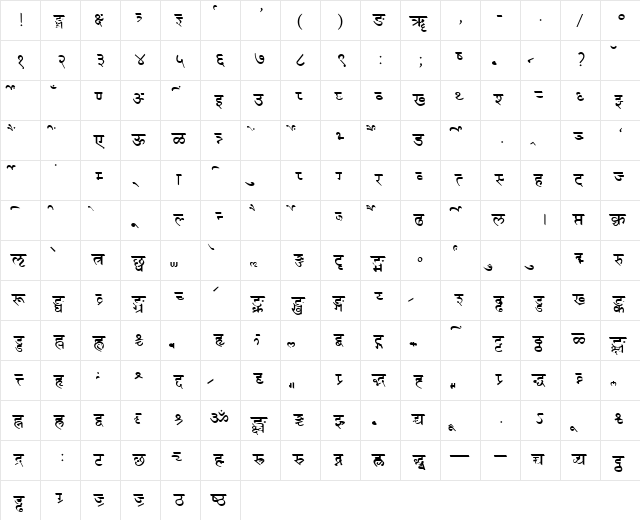
AkrutiDevPataliputra Normal
Design Context for AkrutiDevPataliputra Typeface
AkrutiDevPataliputra is a composed and adaptable typeface that performs quietly and consistently across a wide range of design contexts.